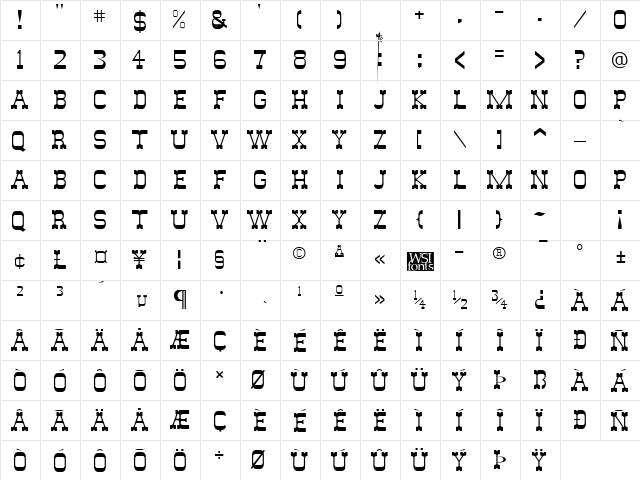
WildWest normal Font Preview
WildWest normal
WildWest normal Font Details
Design Context for WildWest Typeface
WildWest is a composed and adaptable typeface that performs quietly and consistently across a wide range of design contexts.